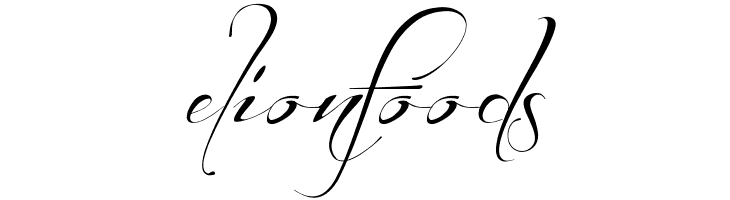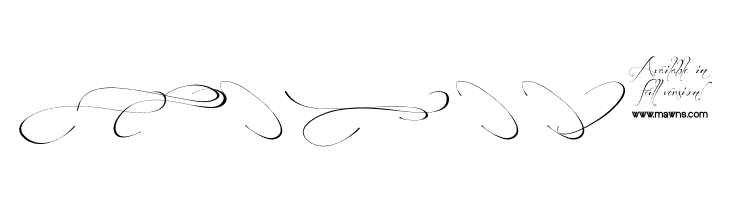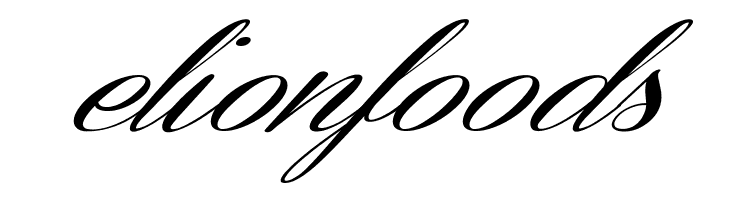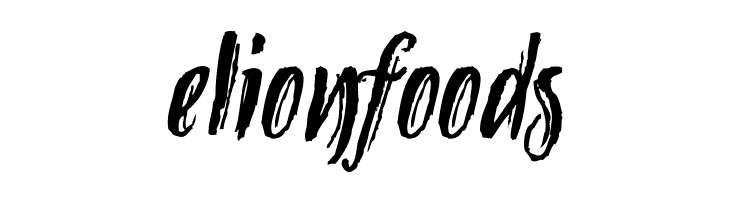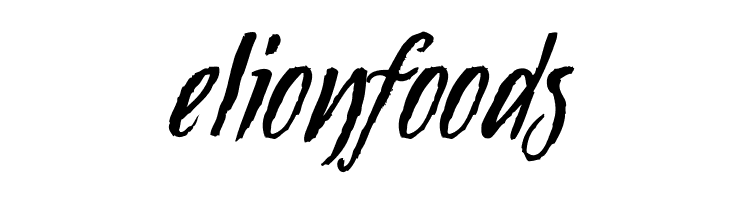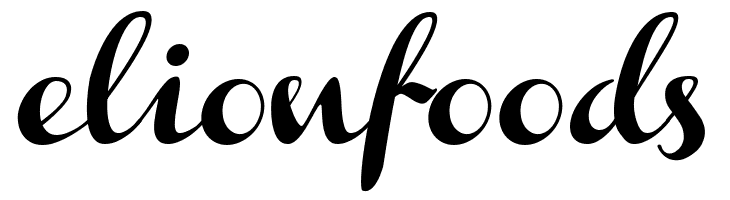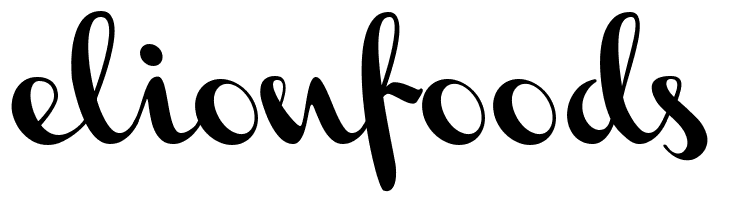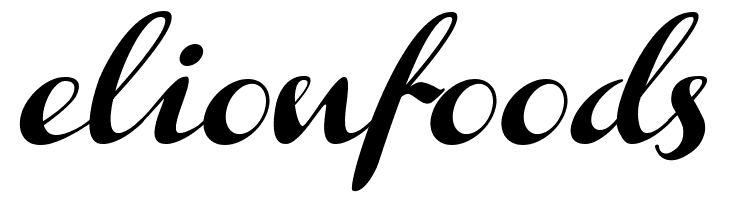
An elegant script font with flowing, cursive strokes and intricate loops.
An elegant script font with intricate swashes and flourishes.
An elegant script font with intricate swashes and high contrast strokes.
A bold, expressive brush script font with dynamic strokes and artistic flair.
A dynamic, slanted script font with expressive brush-like strokes.
A dynamic, brush-style script font with expressive, fluid strokes.
A dynamic, slanted cursive font with expressive strokes and artistic flair.
A left-slanted, calligraphic font with bold, flowing strokes and artistic flair.
A dynamic, slanted script font with elegant curves and fluid strokes.